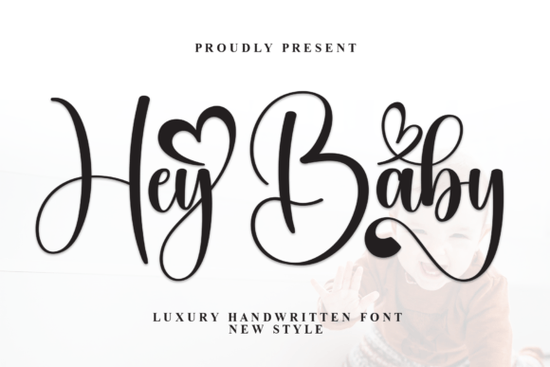
Looking for a handwritten font that feels both elegant and personal? Hey Baby Font is a flowing script typeface designed for projects that need a graceful, calligraphy-inspired look. It works beautifully on wedding invitations, branding materials, greeting cards, and social media graphics. If you're a designer, crafter, or small business owner searching for a versatile handwritten style, this font deserves a closer look.
What Makes This Handwritten Script Stand Out?
Plenty of script fonts try to mimic handwriting, but many end up looking stiff or overly digital. The Hey Baby Font takes a different approach. Each letter was carefully shaped to flow naturally into the next, creating a rhythm that feels like real pen-on-paper calligraphy. The curves are smooth, the connections are clean, and the overall texture has a warmth that flat fonts simply can't match.
Because it's rooted in traditional calligraphy principles, the typeface carries a timeless quality. It doesn't lean trendy or overly stylized, which means your designs won't feel dated in a year or two. That kind of staying power matters when you're building a brand or creating products for print-on-demand shops.
Where Does This Font Work Best?
This script font is a strong fit for a range of creative projects. Here are some popular uses:
- Wedding stationery invitations, save-the-dates, menus, and place cards
- Logo design boutique brands, florists, photographers, and beauty businesses
- Greeting cards birthday, thank-you, and holiday designs
- Social media graphics quote posts, story overlays, and promotional banners
- Print-on-demand products mugs, tote bags, wall art, and apparel
- Blog headers and website accents
The flowing style pairs especially well with minimal layouts where the font can take center stage. It also plays nicely alongside clean sans-serif typefaces if you want a mix of modern and classic.
How Does It Compare to Other Script Fonts?
If you've browsed Creative Fabrica's script font collection, you know there's no shortage of options. The Soulmate font shares a similar romantic feel, but its letterforms are slightly bolder and more compact. For something with a rustic, home-spun character, the Country Kitchen font leans into a hand-lettered, farmhouse aesthetic.
Designers who prefer a laid-back, California-inspired vibe might enjoy the California font, which carries a relaxed, surf-culture energy. Meanwhile, the Vintage Handmade font brings a rougher, more textured look that works well for retro-themed projects. And if you need something with bold, confident strokes, the Masterday font offers strong presence while still feeling handcrafted.
What sets Hey Baby apart from these alternatives is its balance. It's expressive without being loud, refined without feeling cold. That middle ground makes it especially useful for projects that need to feel thoughtful and personal.
Tips for Getting the Most Out of This Font
A few practical suggestions if you decide to use this typeface in your work:
- Use it at larger sizes. Like most script fonts, the details shine when the text is big enough to appreciate. Headlines, titles, and featured words are ideal.
- Pair it with a simple serif or sans-serif. A clean companion font for body text keeps the layout balanced and readable.
- Watch your spacing. Handwritten scripts often benefit from slightly looser letter-spacing, especially in all-caps settings.
- Test it in your actual design tool before committing to a final layout. Some script fonts look different depending on the software and rendering engine.
Who Should Consider Adding This Font to Their Collection?
If you regularly design wedding materials, create quotes for social media, or sell personalized products online, having a reliable calligraphy-style script on hand saves time and improves your output. This font works well for both experienced designers who need a polished option and hobbyists who want their projects to look professional without spending hours on hand-lettering.
Small business owners building their own branding will also find it useful. A distinctive script font adds personality to packaging, thank-you cards, and marketing materials without requiring a custom calligraphy commission.